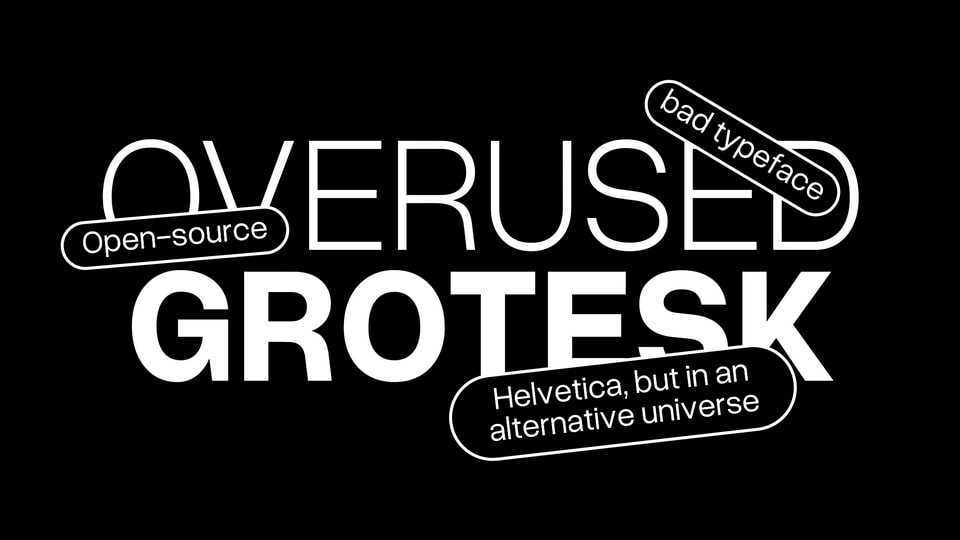
Download Overused Grotesk font, a neo-grotesque sans serif typeface that looks spectacularly like a Helvetica alternative because it is one. Overused Grotesk font offers a simple and minimalist design, making it suitable for a wide range of applications.